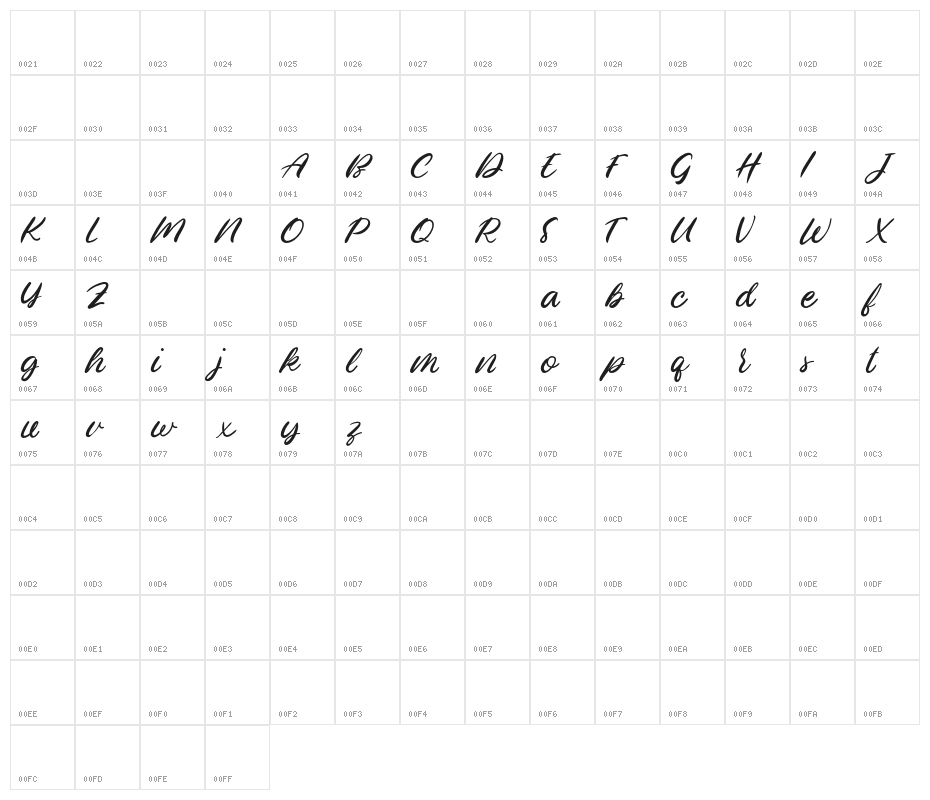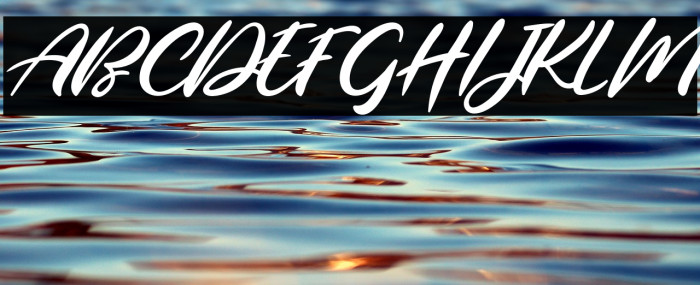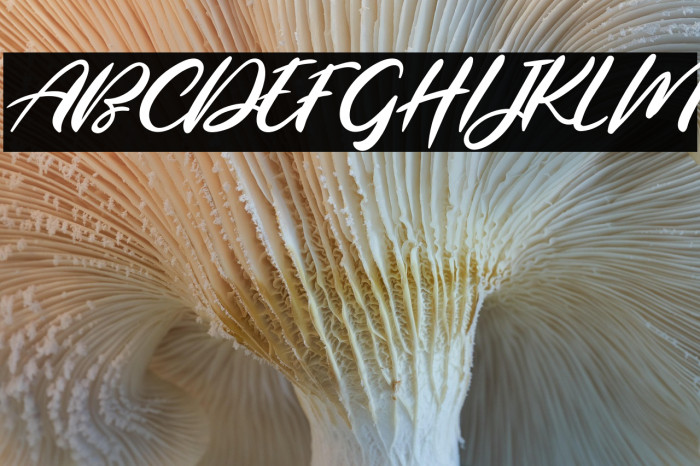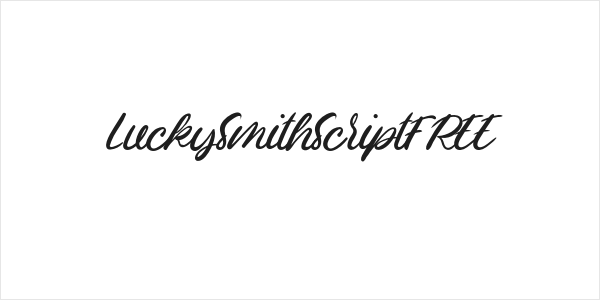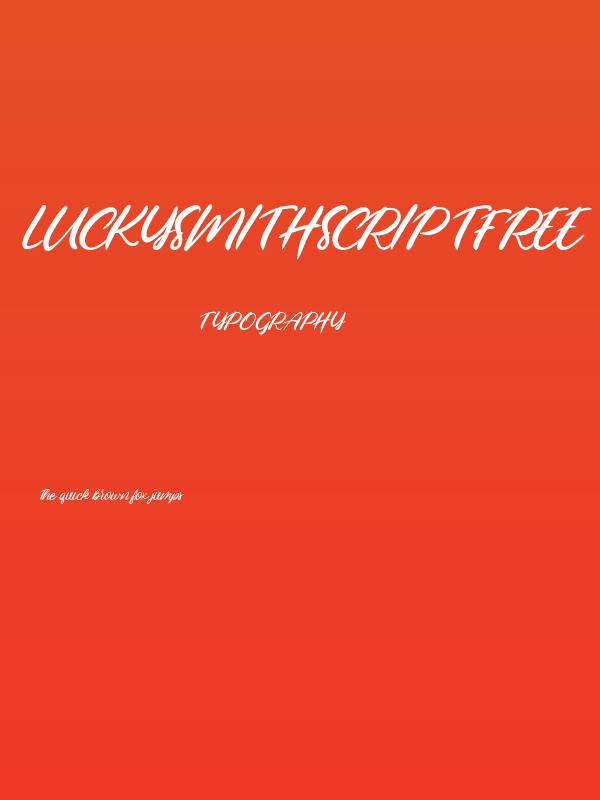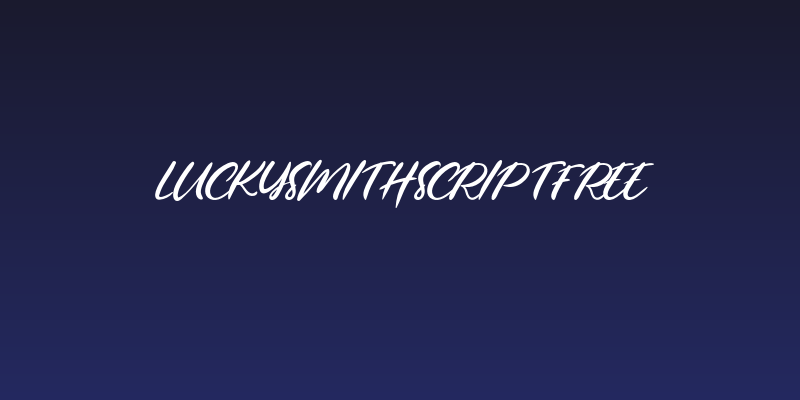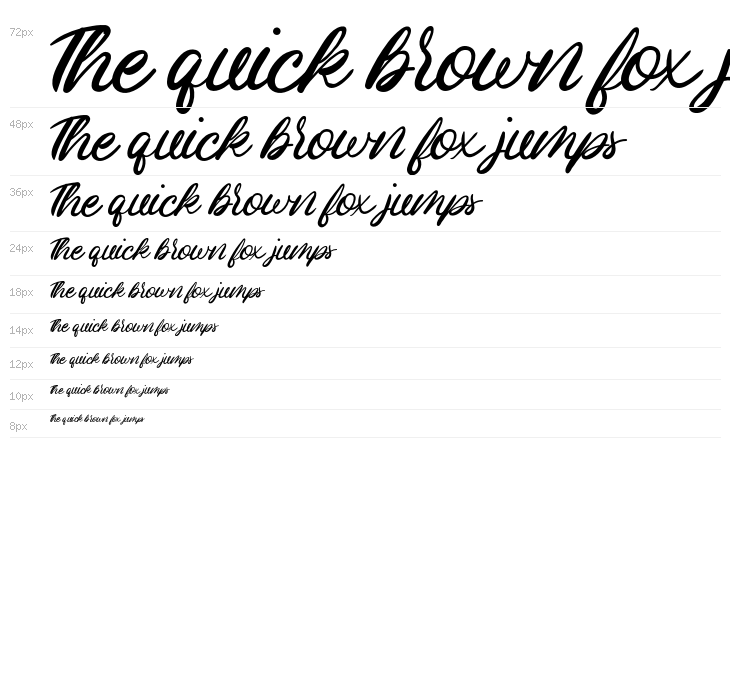
LuckySmithScriptFREE Font
LuckySmithScriptFREE Description
This font exudes a lively and dynamic script style, characterized by its fluid, cursive strokes that mimic the elegance of handwritten calligraphy. The letters are connected seamlessly, creating a sense of motion and continuity. The uppercase letters are bold and prominent, while the lowercase letters maintain a consistent flow, enhancing readability. The font's playful yet sophisticated appearance makes it suitable for creative and artistic projects. Its unique flair is accentuated by the varying thickness in the strokes, adding depth and personality to each character.
| Use Case | Logos, Headlines, Artistic designs |
| Proposed Projects | Ideal for wedding invitations, greeting cards, branding, and artistic designs. |